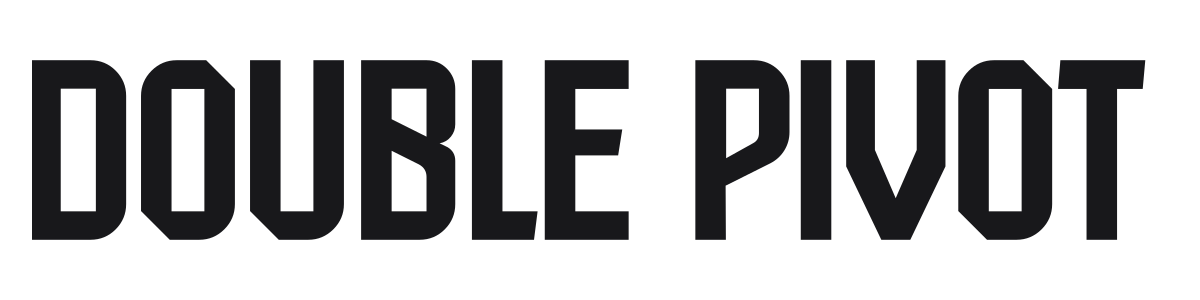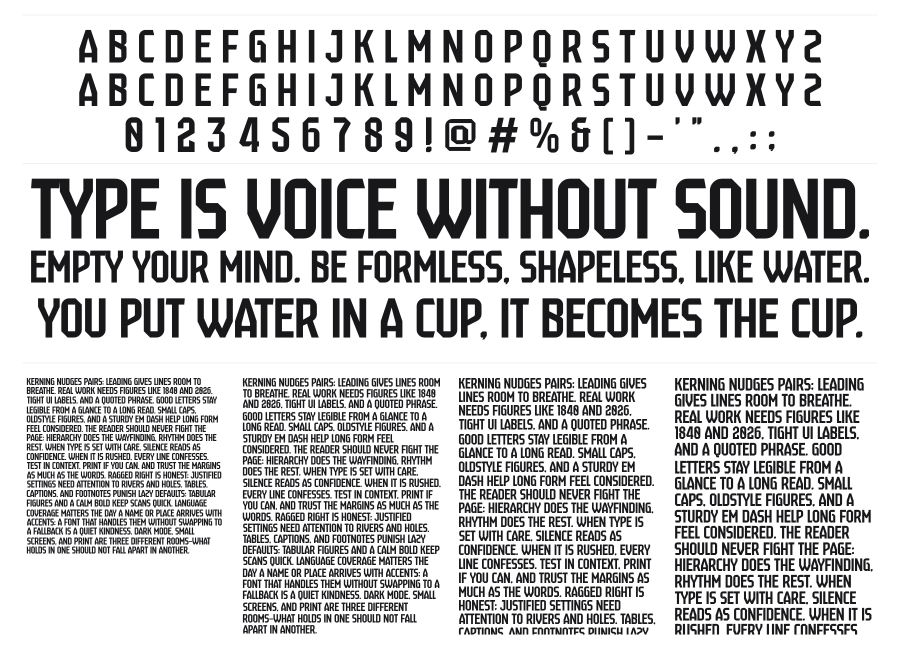
Double Pivot
Double Pivot is a condensed bold sans-serif built for impact, with tight angular geometry and a commanding athletic presence. The squared terminals and subtle notched joints give it a mechanical edge that reads as competitive and modern without tipping into novelty. Strong at large sizes for sports branding, team identities, and high-energy editorial work.